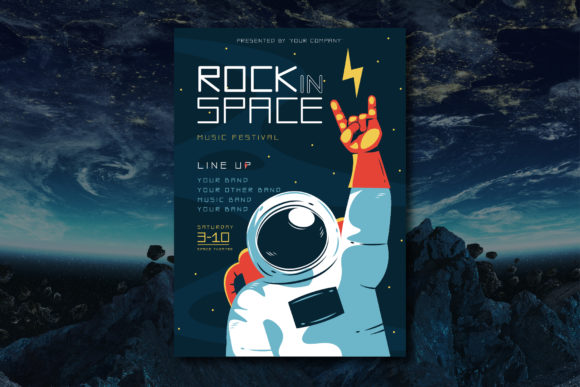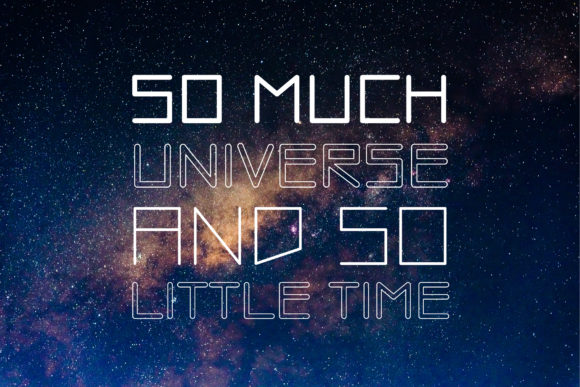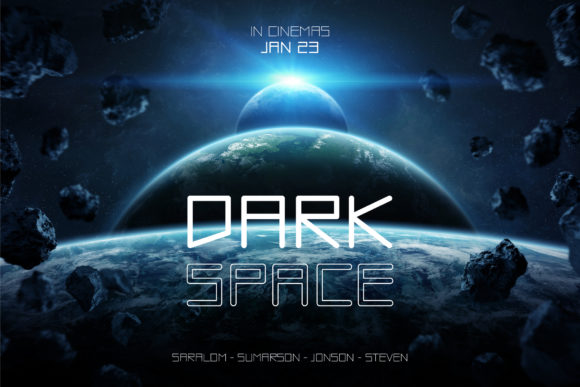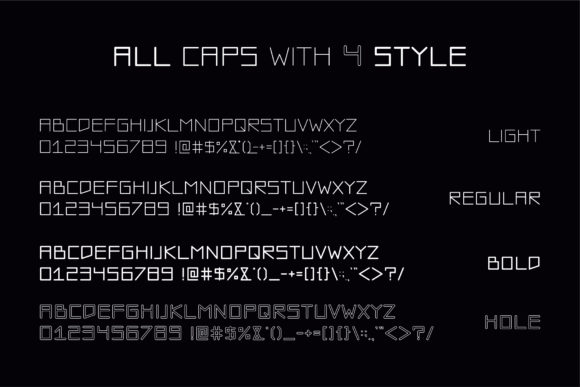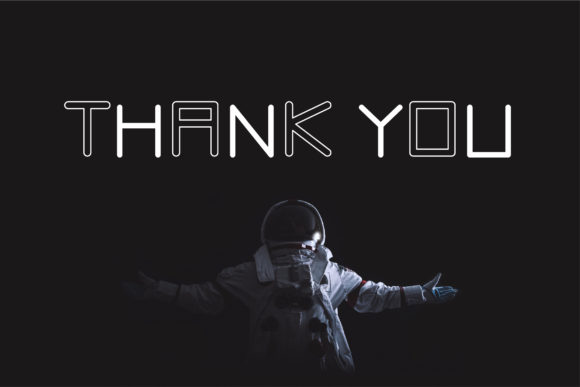
The Ultimate Design Game-Changer: Galaxmen Font
I’ll never forget the design project that had me stuck in a creative rut. I was working on a futuristic-themed branding campaign, and no matter how hard I tried, I just couldn’t find the perfect font to bring my vision to life. That was until I stumbled upon the Galaxmen Font. This incredibly unique and futuristic display font has been a game-changer for my design work, and I’m excited to share my experience with you.
Here’s what makes Galaxmen Font stand out:
- ✨ Unique and futuristic design: The Galaxmen Font has a one-of-a-kind look that’s sure to make your designs stand out.
- ✅ Highly legible: Despite its futuristic design, the font remains highly legible, even at smaller sizes.
- 💥 Attention-grabbing: The Galaxmen Font is perfect for headlines, titles, and other attention-grabbing elements.
However, there are a few quirks to keep in mind:
- 🤔 Limited use cases: Due to its bold and futuristic design, the Galaxmen Font may not be suitable for body text or more traditional designs.
- ⚠️ Requires careful kerning: As with any bold font, kerning can be a bit tricky with Galaxmen. Make sure to adjust the spacing to get the best results.
- Experiment with the font’s OpenType features, such as ligatures and stylistic alternates, to add more visual interest.
The Galaxmen Font was designed with the goal of creating a truly unique and futuristic display font. The designer, inspired by classic sci-fi movies and video games, set out to create a font that would transport users to another galaxy. With its bold, geometric shapes and attention-grabbing design, the Galaxmen Font is sure to bring your creative ideas to life.
| Is Galaxmen Font suitable for body text? | While Galaxmen Font is highly legible, its bold design makes it better suited for headlines, titles, and other attention-grabbing elements. |